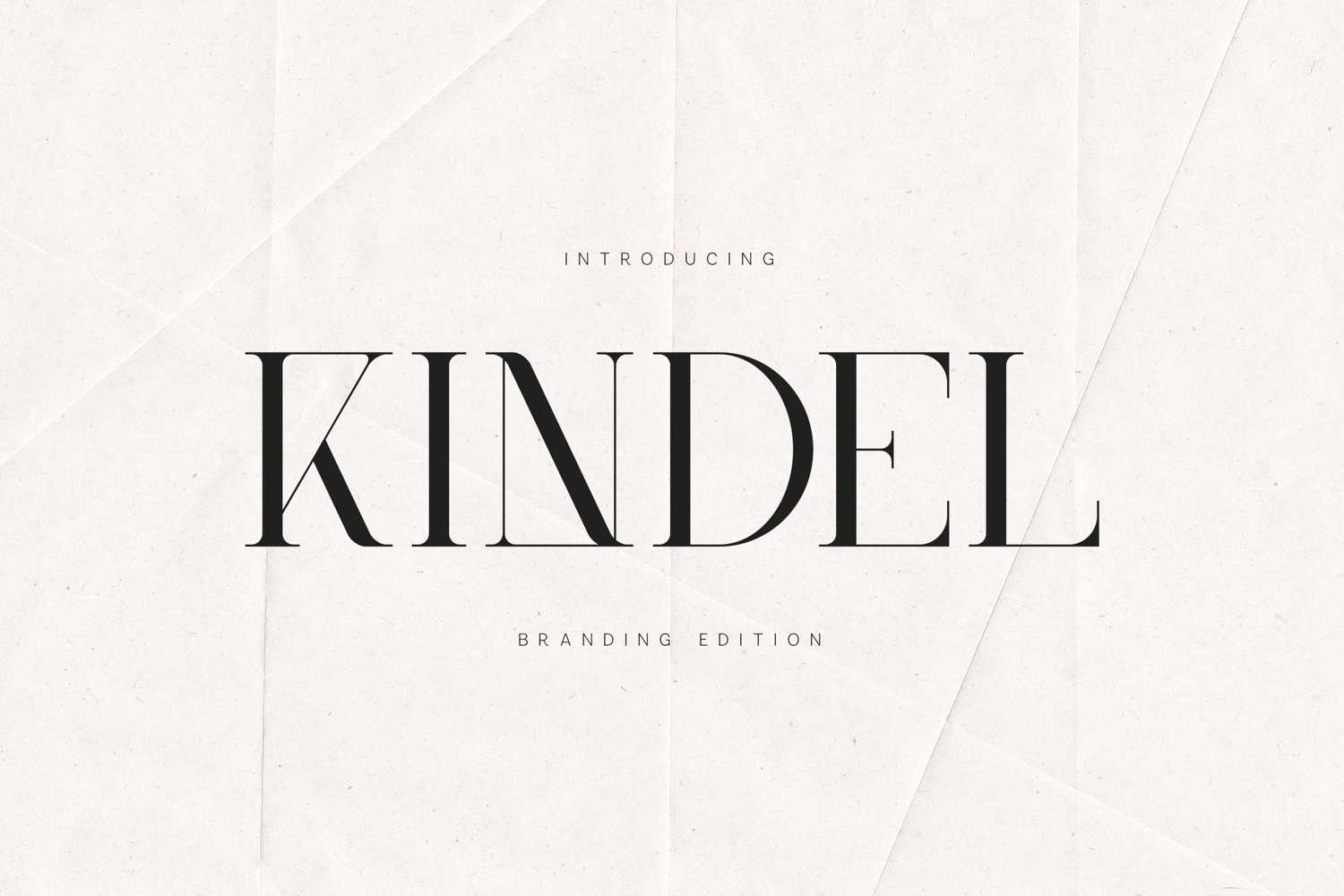
Kindel Elegant Branding Serif Font
Kindel is an elegant modern serif font crafted for refined branding and timeless visual identity. With graceful proportions, high-contrast strokes, and carefully sculpted letterforms, Kindel blends classic serif elegance with a contemporary sensibility.
The Branding Edition is designed to feel confident, clean, and editorial-forward. Its sharp details and balanced rhythm make it ideal for logos, brand identities, luxury packaging, magazines, and sophisticated digital experiences. Kindel communicates trust, clarity, and taste without feeling rigid or outdated.
This typeface shines in headlines and titles but remains controlled enough for short-form text, making it a versatile choice for designers working across fashion, lifestyle, beauty, publishing, and premium brand systems.
Kindel includes a full character set with extensive multilingual support, numerals, punctuation, and symbols—ready for professional use in both print and digital environments.
- Brand Identity & Logos
- Editorial & Magazine Design
- Luxury & Fashion Projects
- Packaging & Labels
- Websites & Digital Branding
- Book Covers & Publishing
- Premium Typography Systems